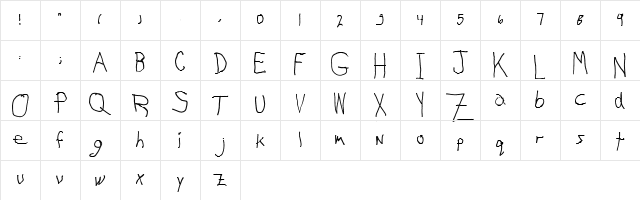
My Left Font Normal
Design Context for My Left Font
My Left Font is a composed and adaptable typeface that performs quietly and consistently across a wide range of design contexts.